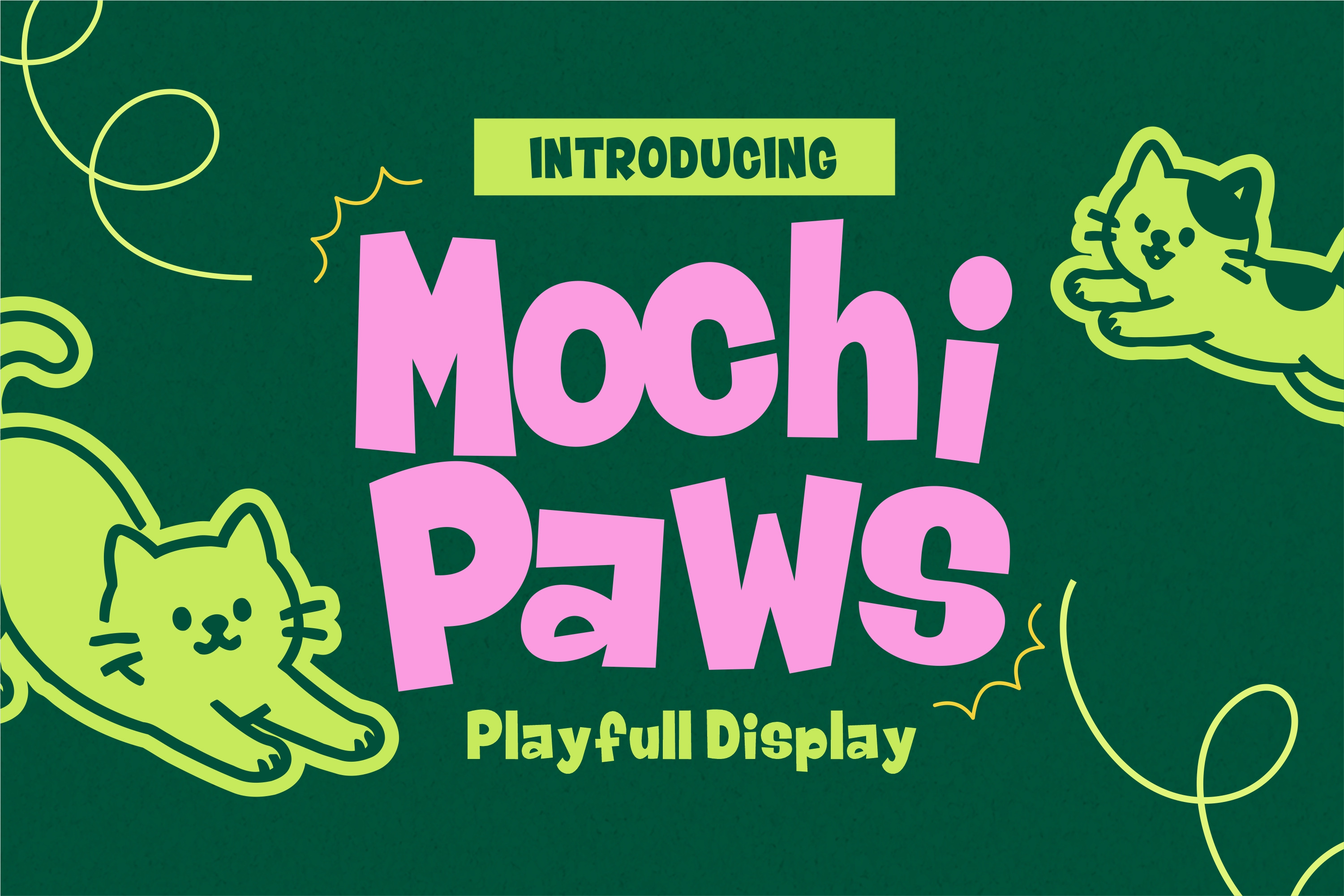
Mochi Paws Playful Display Font
Mochi Paws is a playful display font with a bold, chunky, and quirky personality. Inspired by cute cats, tiny paws, and sweet biscuits, this font brings a fun and cheerful feel to any design.
Perfect for display titles, branding, packaging, posters, stickers, merchandise, social media posts, kids products, pet shops, and cute-themed designs.
With its playful letterforms and adorable cat illustration elements, Mochi Paws is ready to make your design look sweeter, more fun, and memorable.